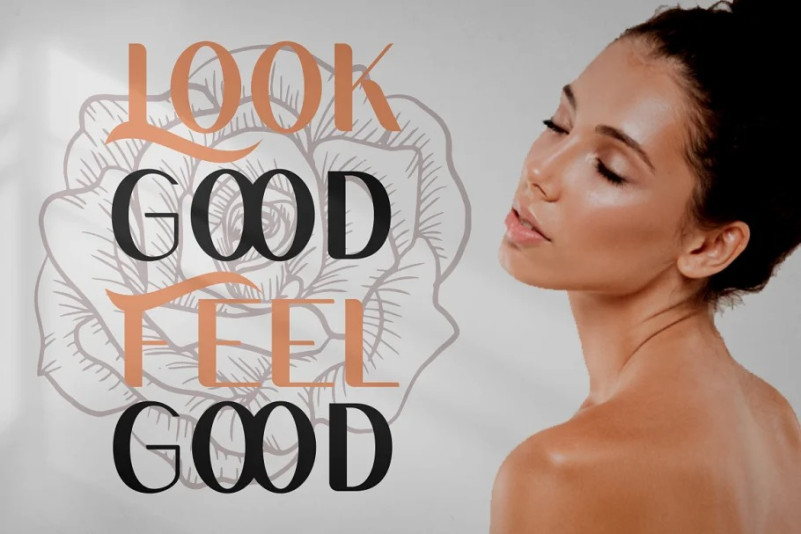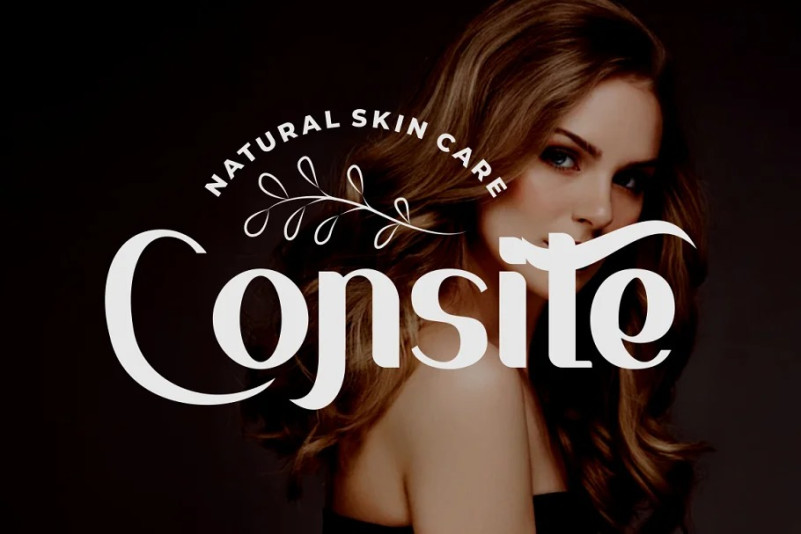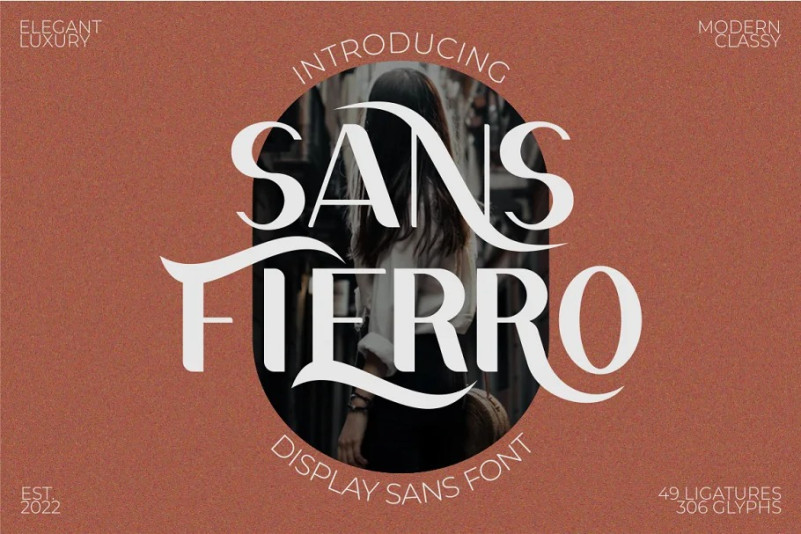
Sans Fierro Font
Introducing a new display sans font called “ Sans Fierro “. Inspired from luxury display from the classic book cover and we combine with sans serif style. With a total of 534 glyphs with 359 alternate, you can make great display combinations for lettering with a lot of options. Come with open type feature ( a lot of alternates and end swash), its help you to make great lettering. Sans Fierro font is also support multi language. Sans Fierro best uses for Logotype, heading,cover, poster, logos, quotes, product packaging, header, merchandise, social media & greeting cards and many more.